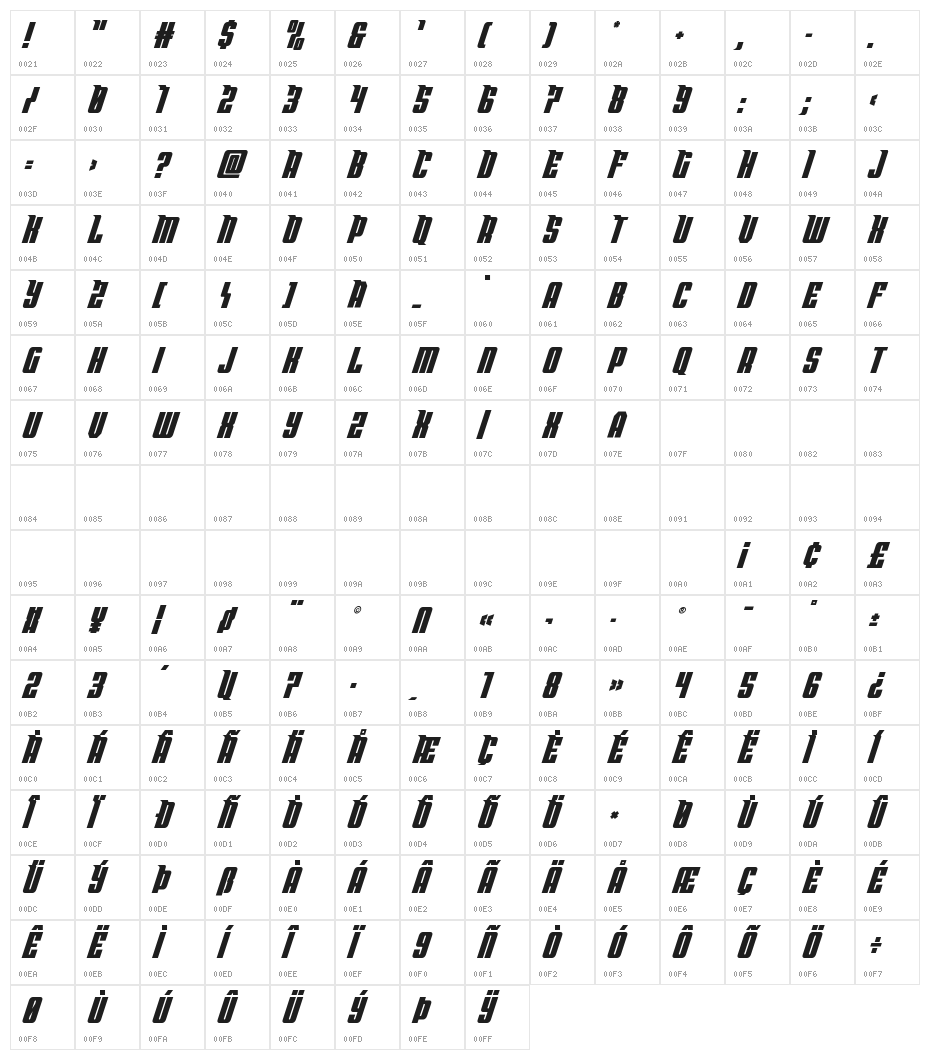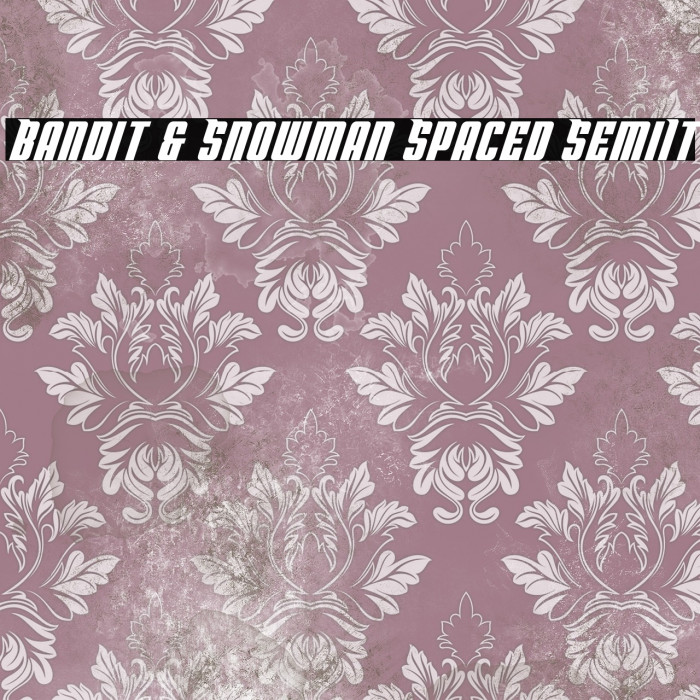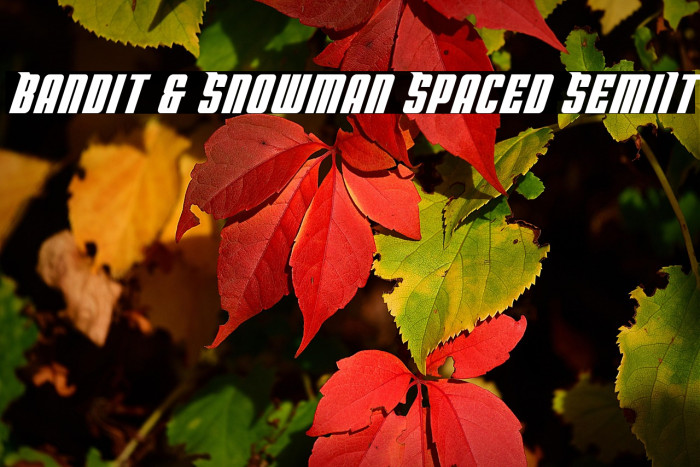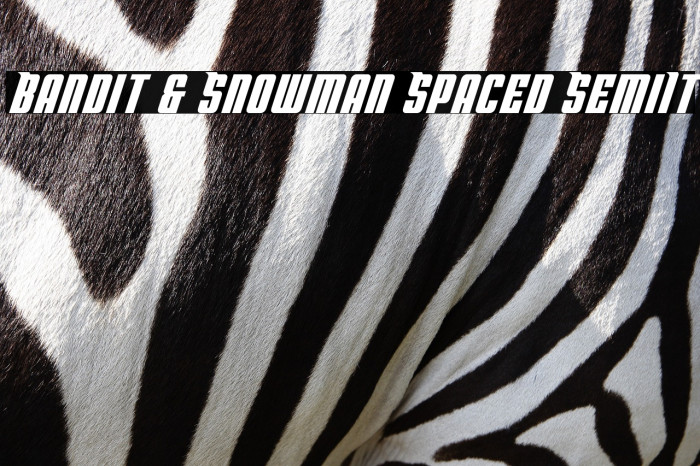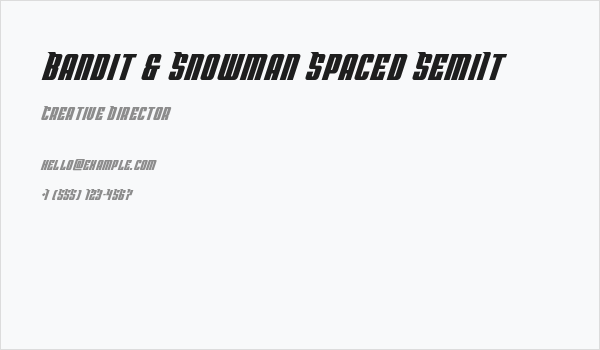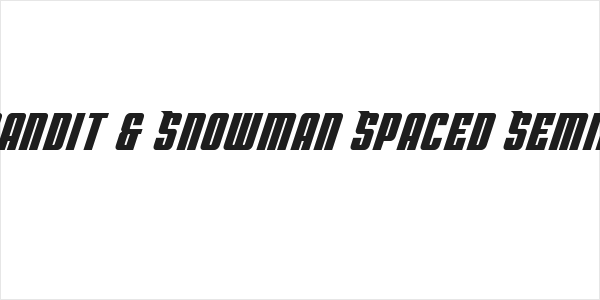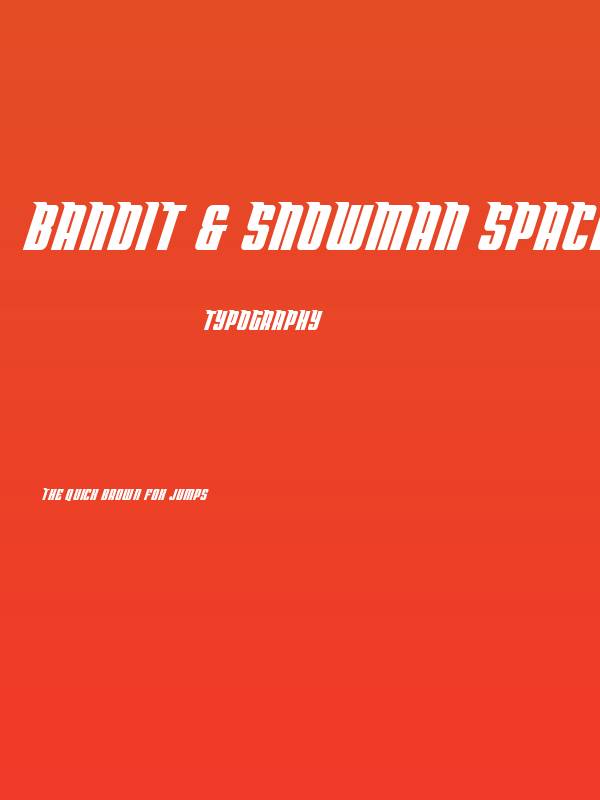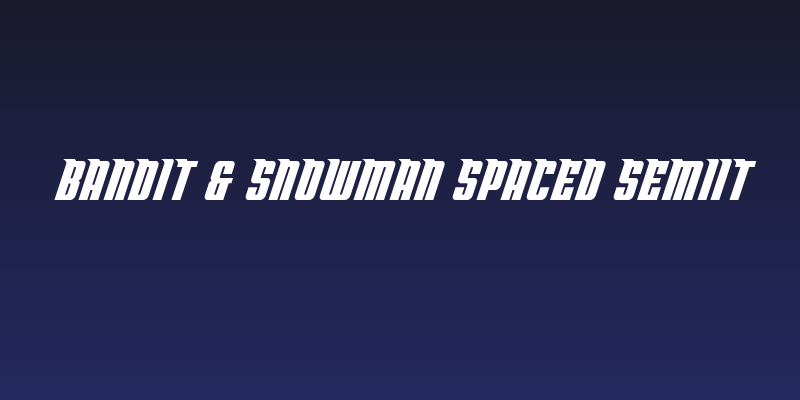
Bandit & Snowman Spaced SemiIt Font
Bandit & Snowman Spaced SemiIt Description
This font features bold, angular characters with a strong, dynamic presence. The letters are slanted, giving a sense of motion and energy, which is further emphasized by the sharp edges and clean lines. The uppercase and lowercase letters maintain a consistent style, with a slight variation in size and shape. Numbers and special characters are designed to match the boldness and angularity of the alphabet, ensuring a cohesive look across all elements. The font's overall aesthetic is modern and assertive, making it ideal for projects that require a strong visual impact.